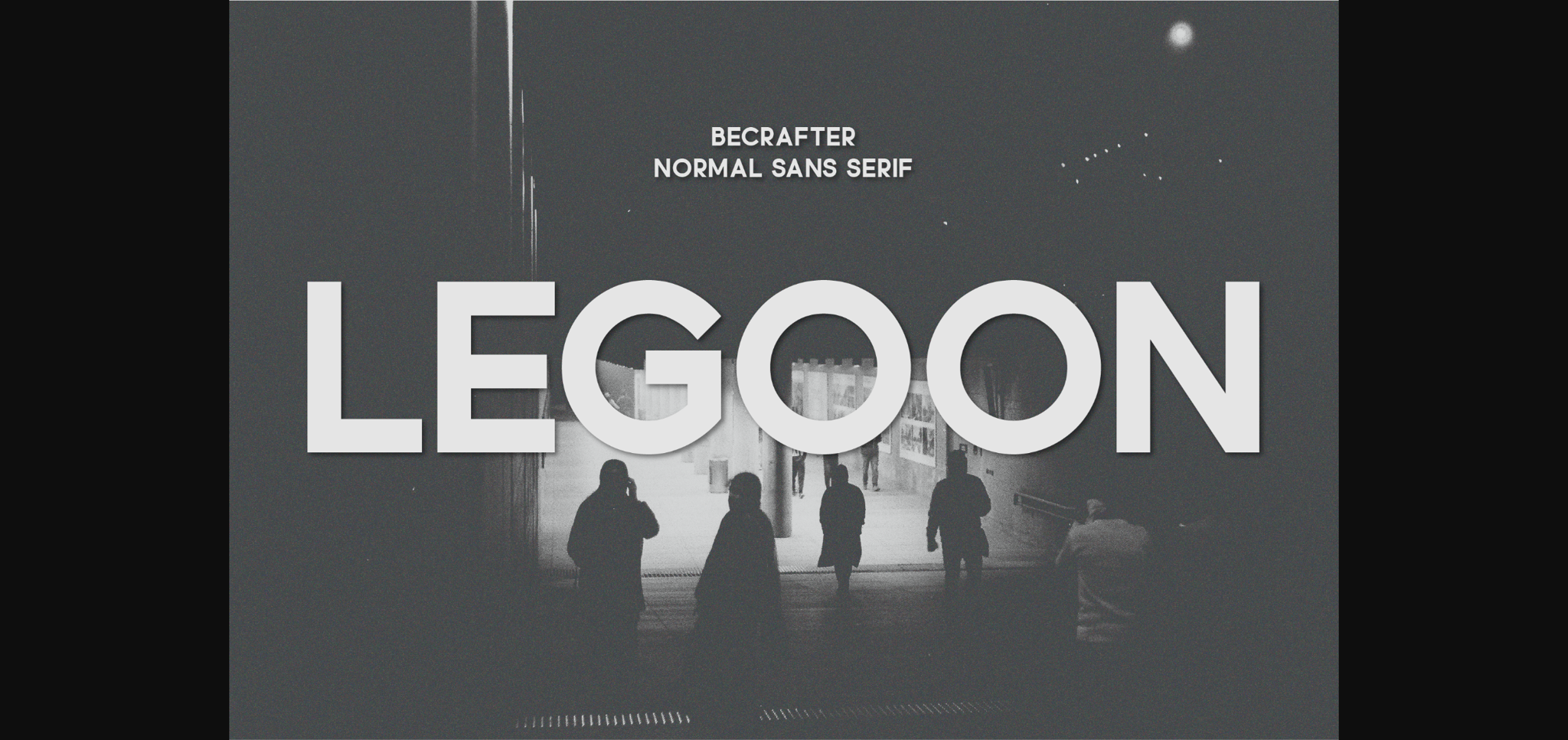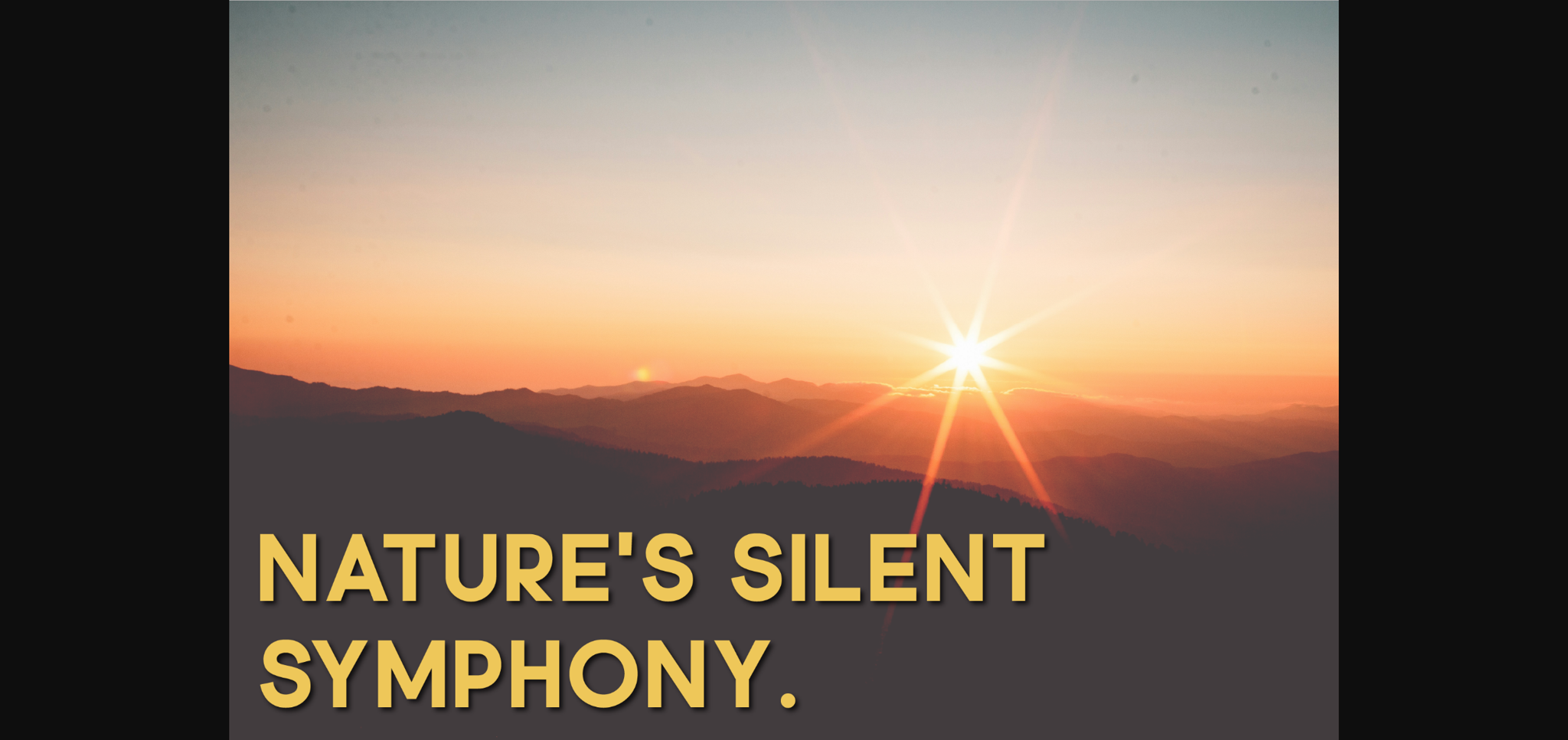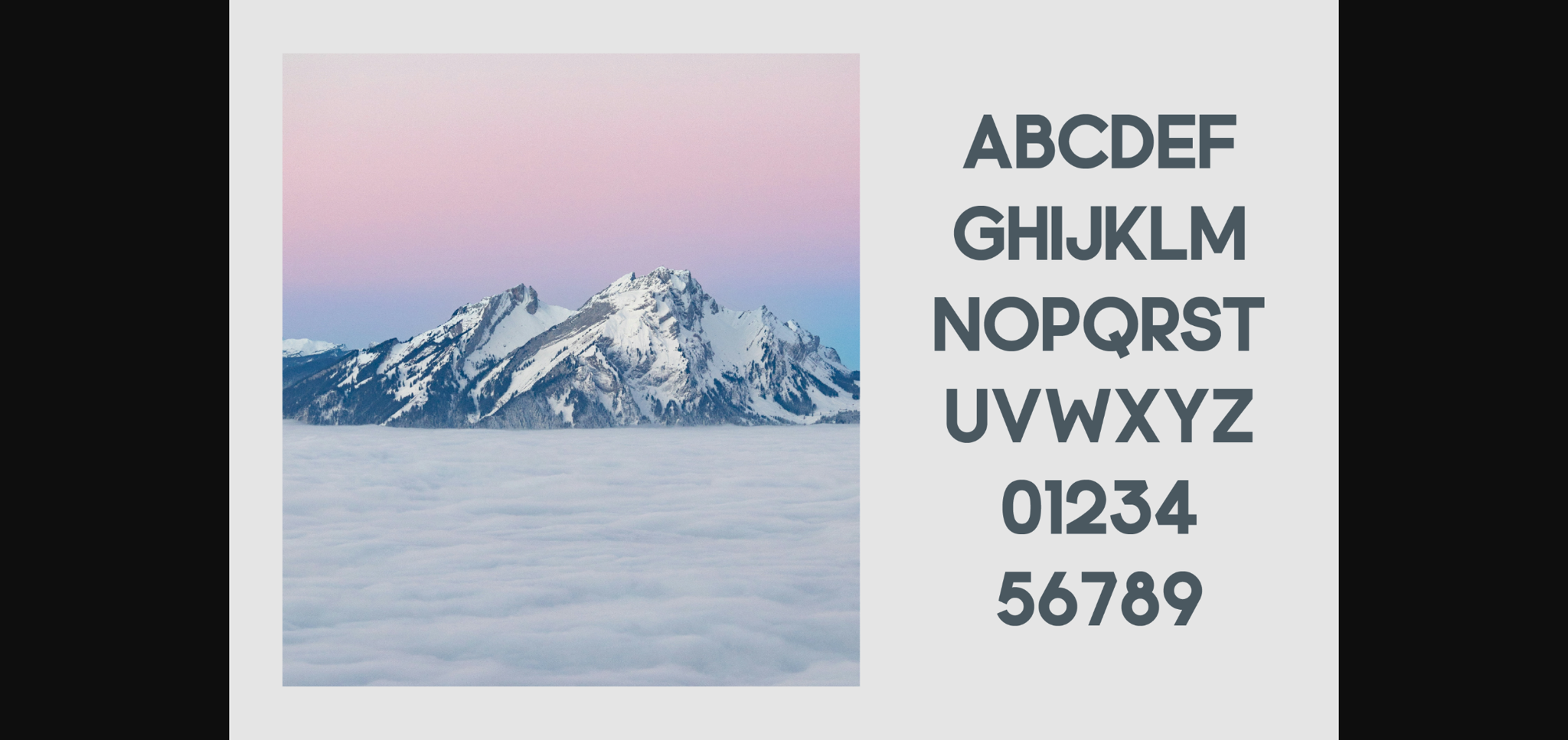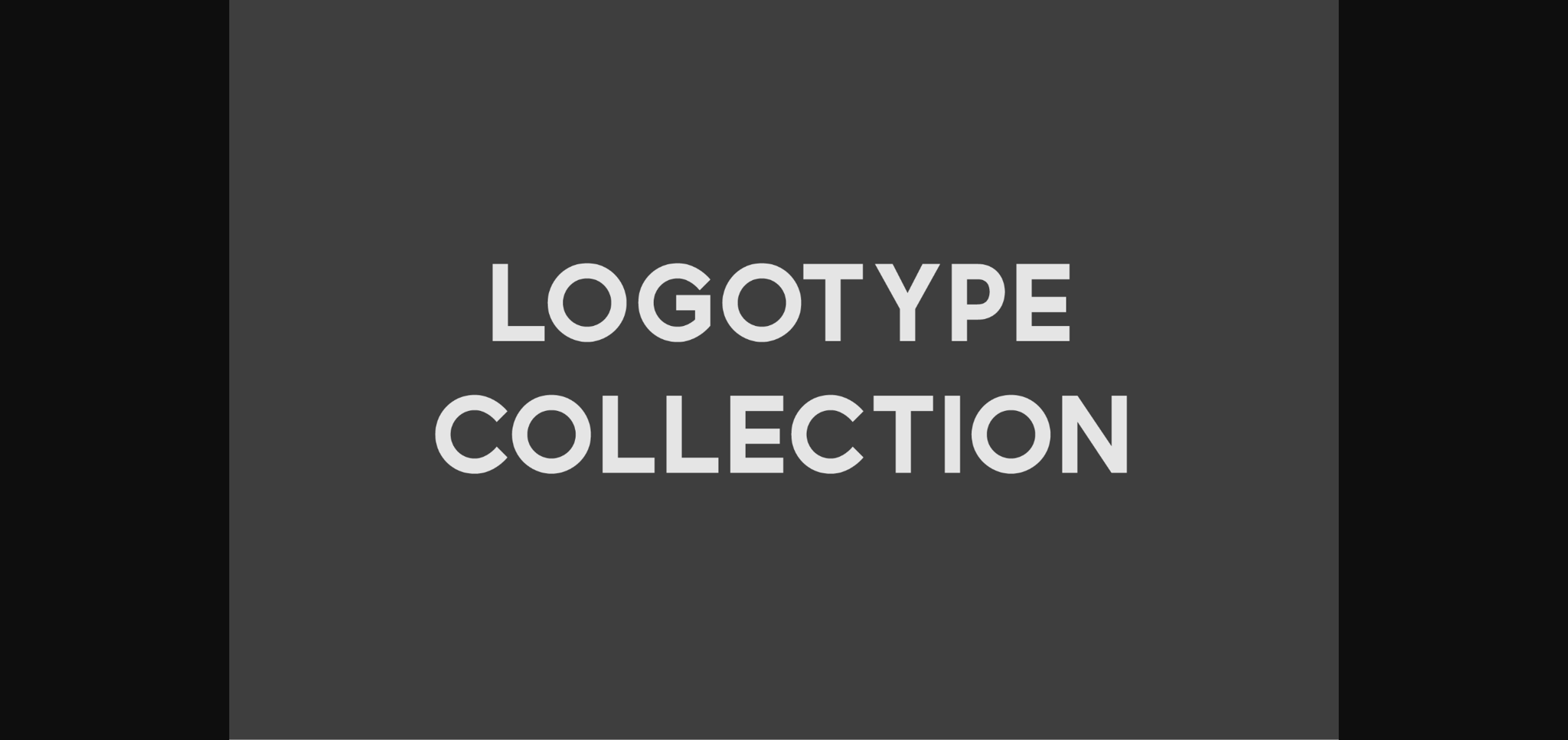
Legoon Font
About Legoon Font
Lagoon is a formidable, bold typeface that exudes a strong vintage charm, making it an excellent choice for all your visually artistic ventures. This distinguished, versatile sans serif font shines no matter the backdrop, imbuing every word with a timeless appeal. Lagoon offers a full range of characters including uppercase alphabets, digits, and punctuation, enabling you to create stunning logos, captivating print materials and beyond. Embrace versatility and let your designs speak volumes with the Lagoon font.